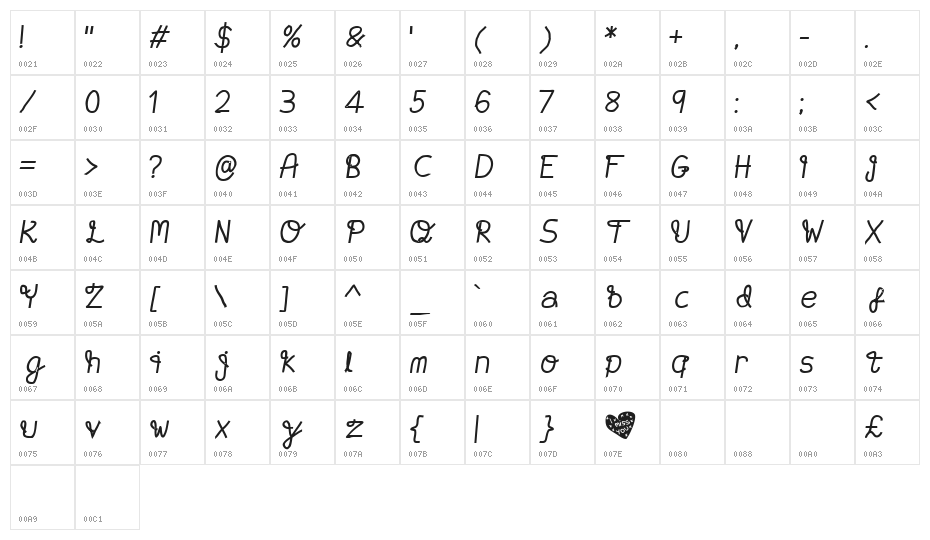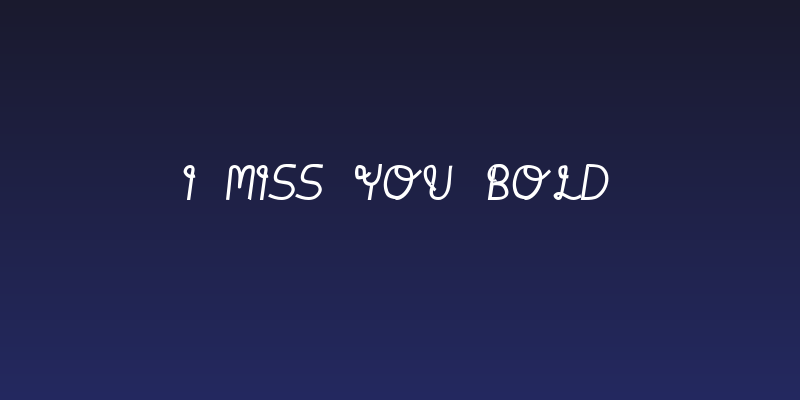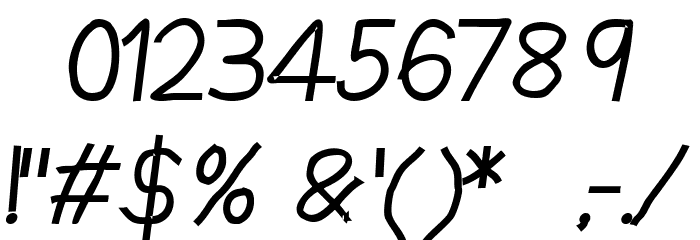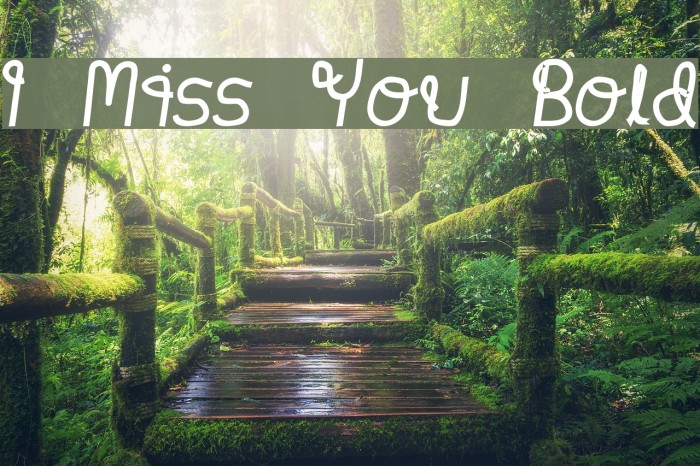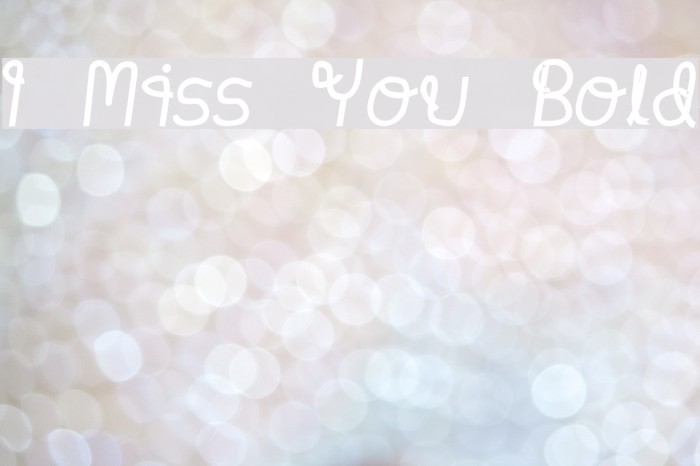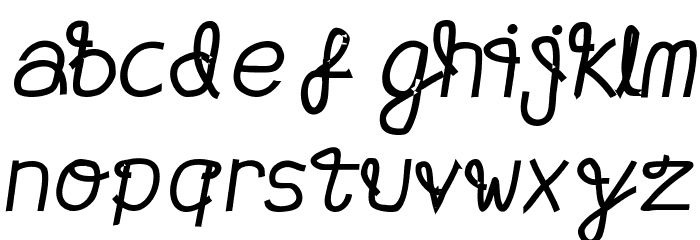
I Miss You Bold Font
This font features a playful and casual script style with a handwritten appearance. The letters are slightly slanted, giving it a dynamic and informal feel. The strokes are consistent in thickness, providing a uniform look across all characters. The uppercase letters maintain a sense of elegance while the lowercase letters are more relaxed and flowing. Numbers and special characters are designed to match the overall style, ensuring cohesion throughout. This font is ideal for projects that require a personal touch or a friendly, approachable vibe.